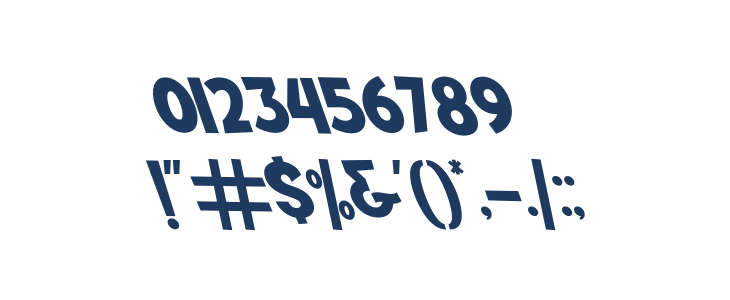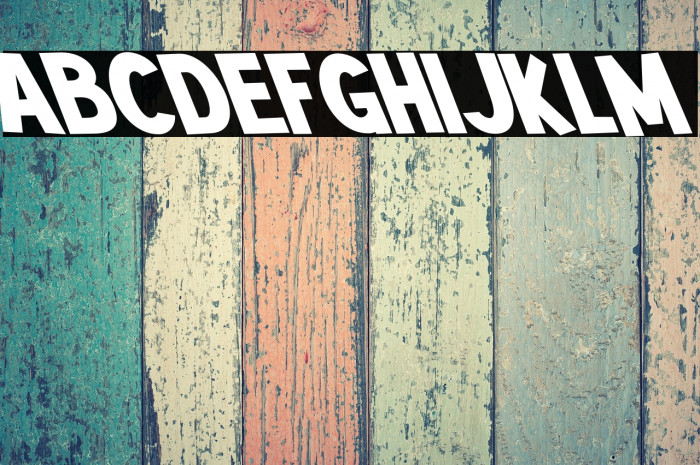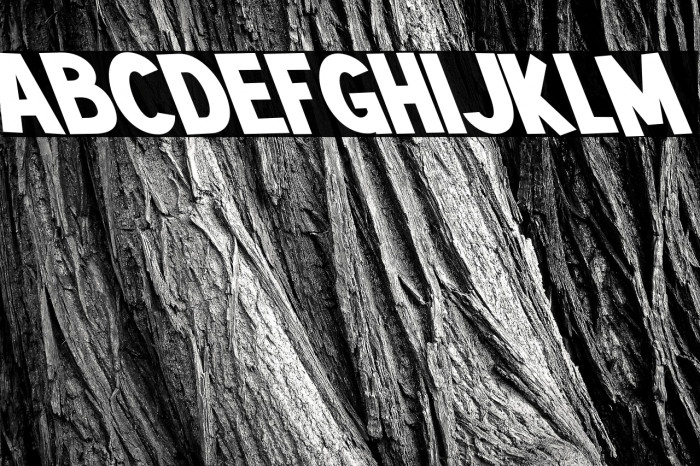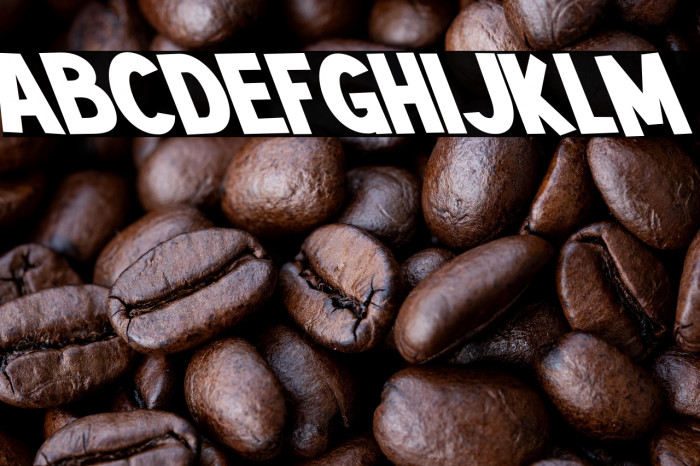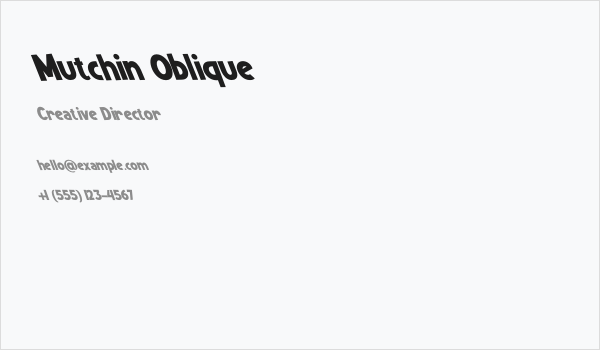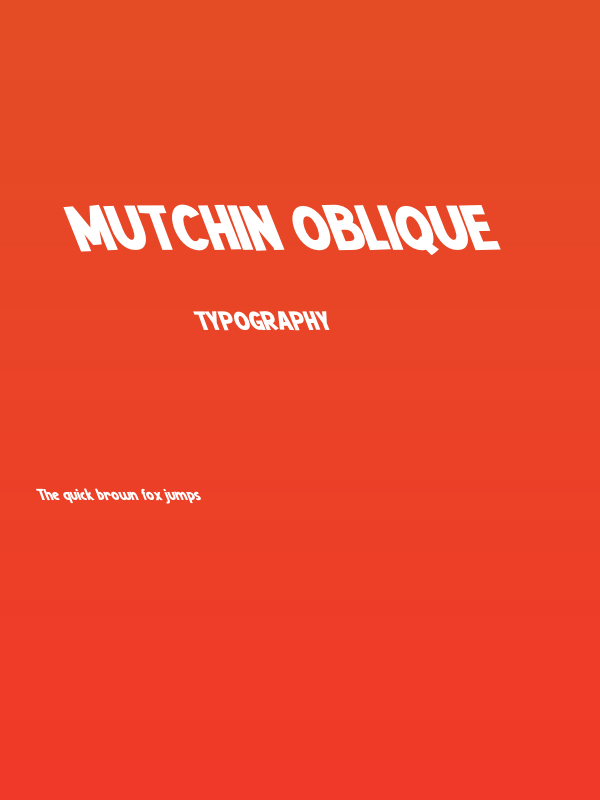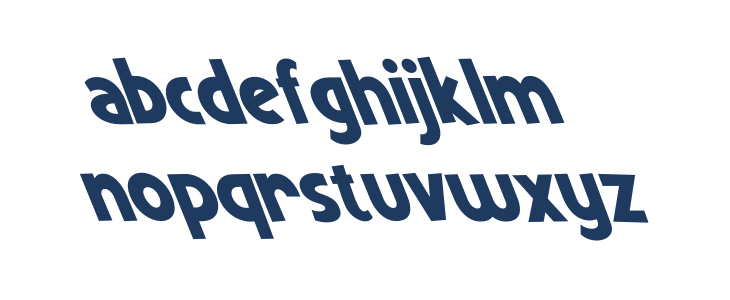
Mutchin Oblique Font
Mutchin Oblique Description
This font features a bold and dynamic style with a strong oblique slant, giving it a sense of movement and energy. The characters are thick and robust, with a slightly condensed appearance that enhances their impact. The uppercase and lowercase letters maintain a consistent weight, ensuring readability while adding a playful touch. The numerals are equally bold, matching the overall aesthetic of the font. Special characters are included, maintaining the same bold and slanted style, making this font versatile for various design needs. The overall impression is one of strength and modernity, suitable for projects that require a bold statement.
| Proposed Projects | Ideal for headlines, posters, branding, and any design requiring a strong visual impact. |